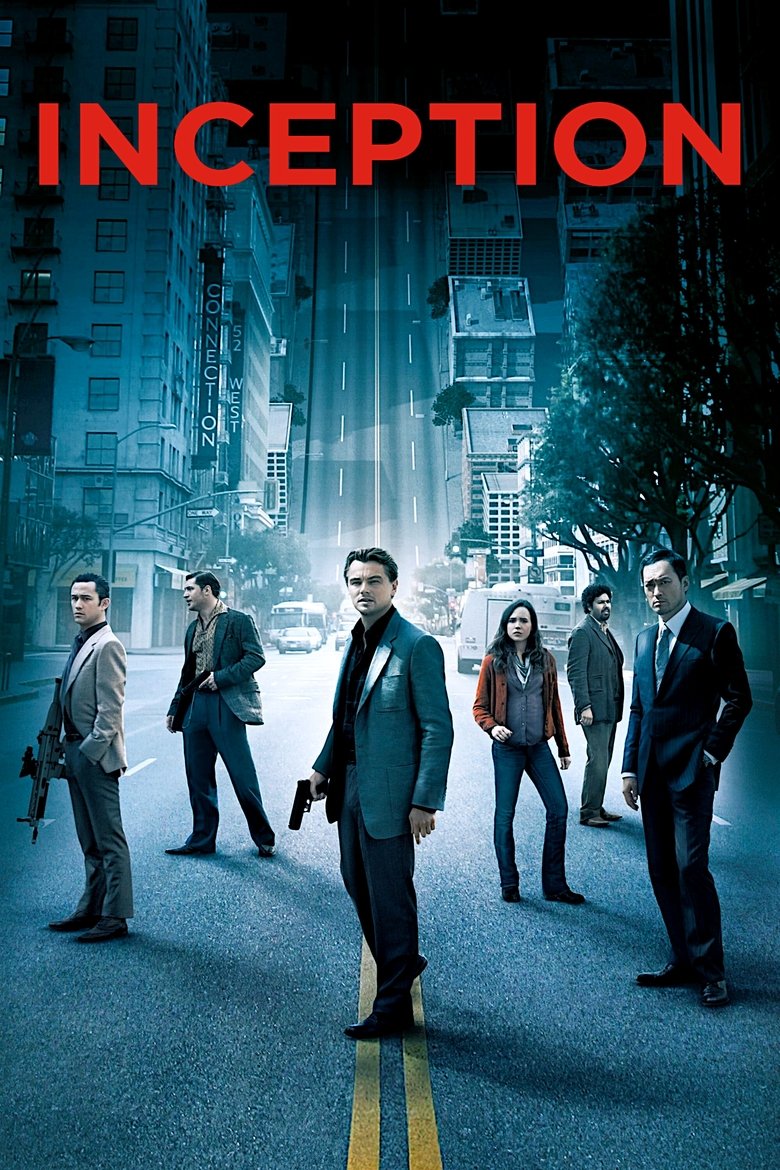
INCEPTION
About the Inception font
Inception's title is a cold, spaced-out condensed sans. Oswald recreates that austere, dream-heist tension for freely usable text.
The original Inception logo uses custom lettering. This generator recreates the look with Oswald — a free, open-license font you can style and download.